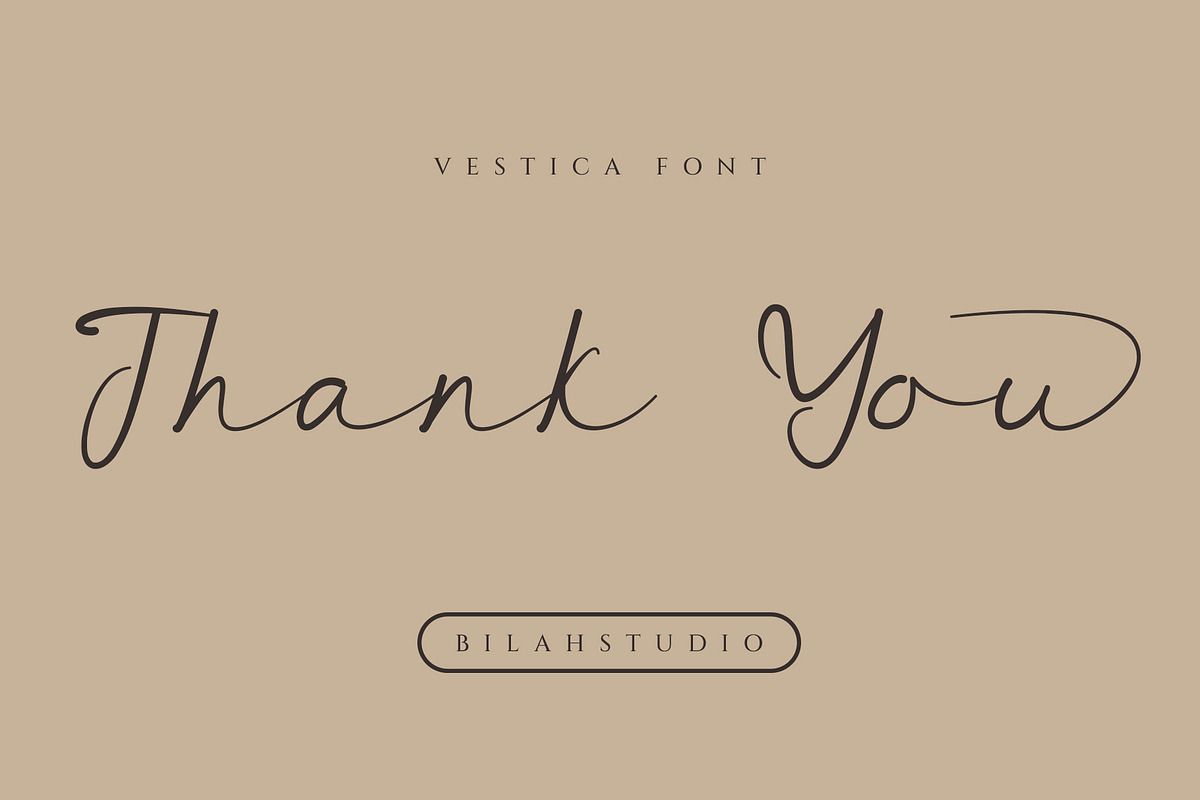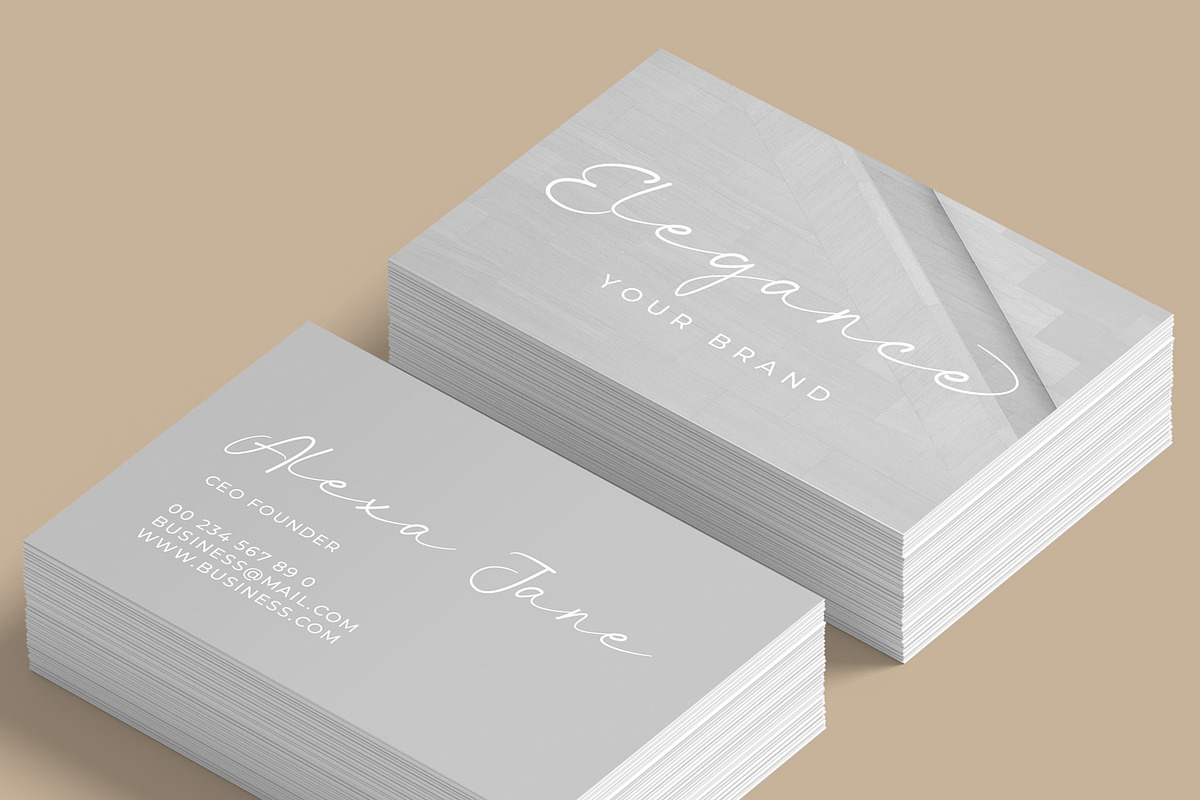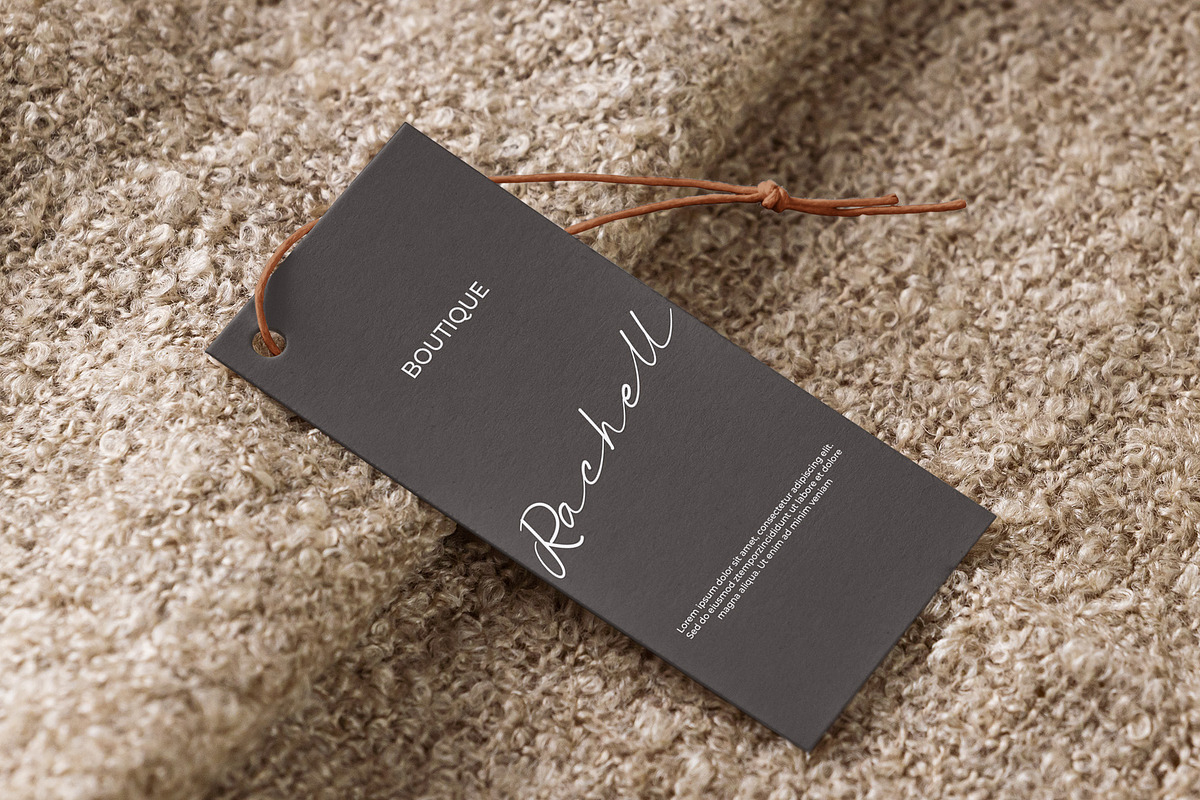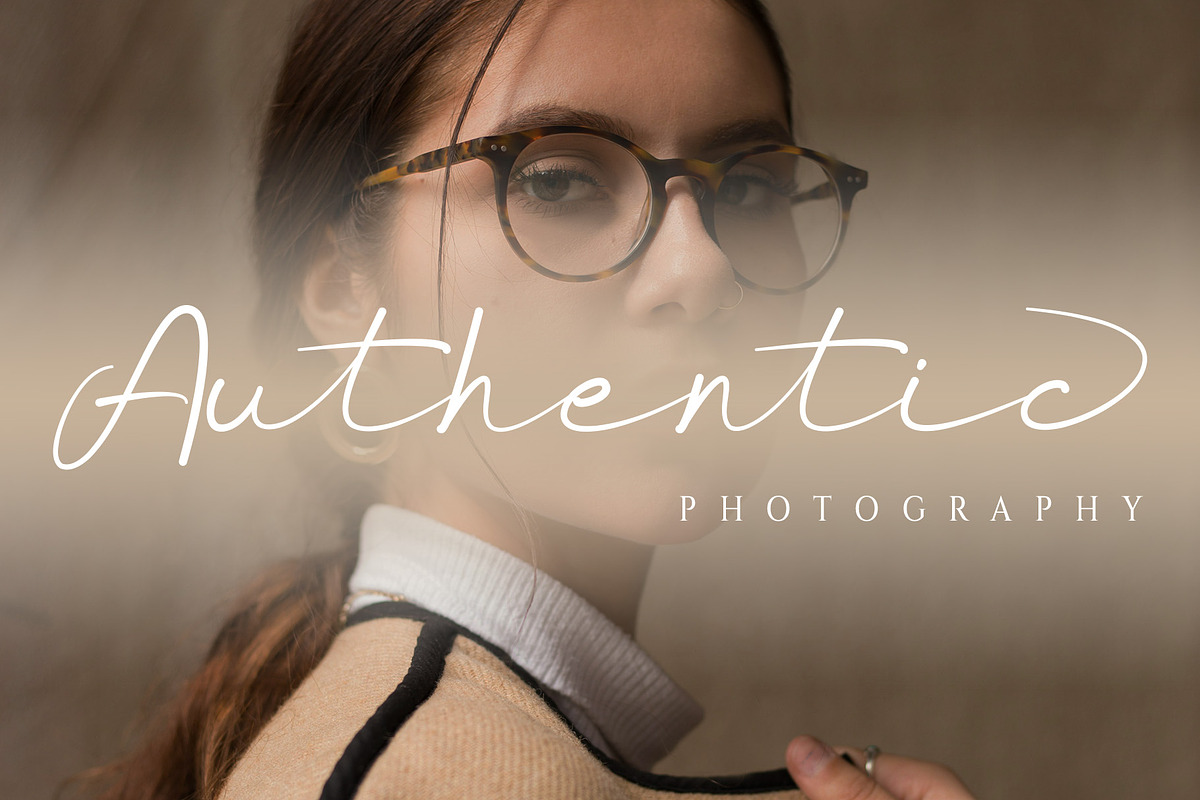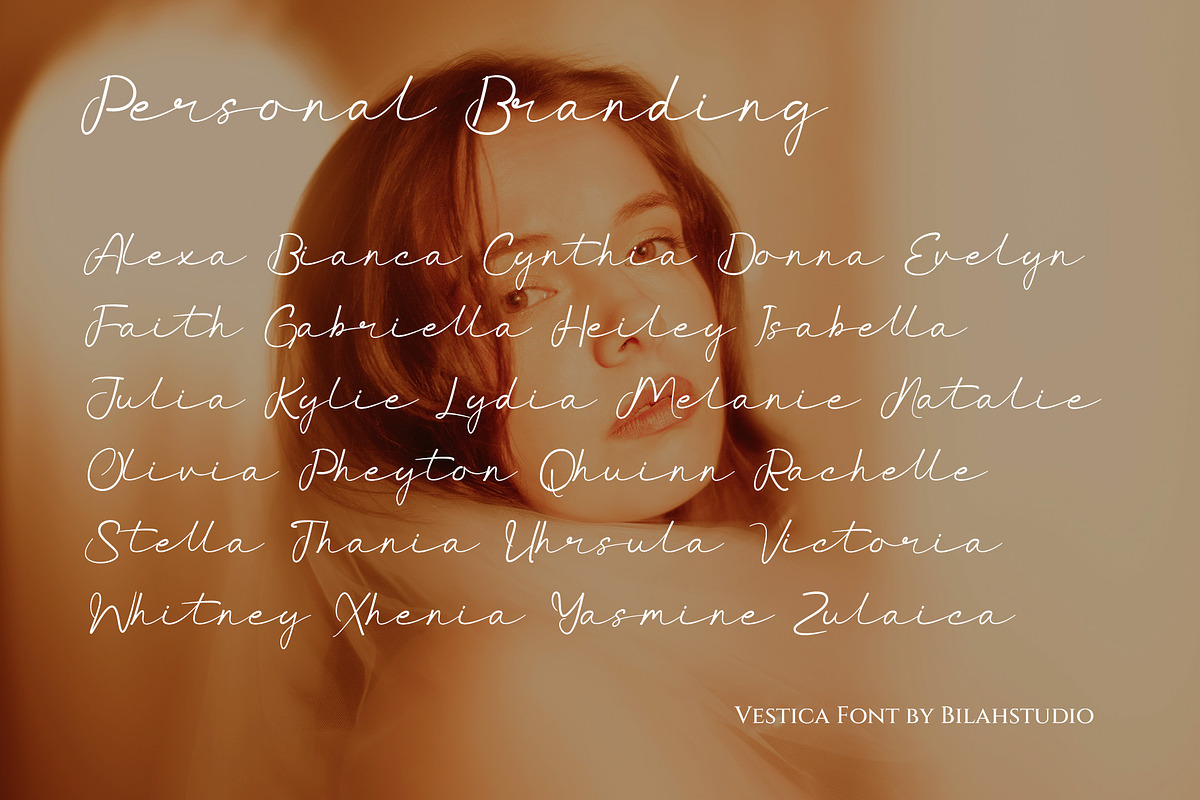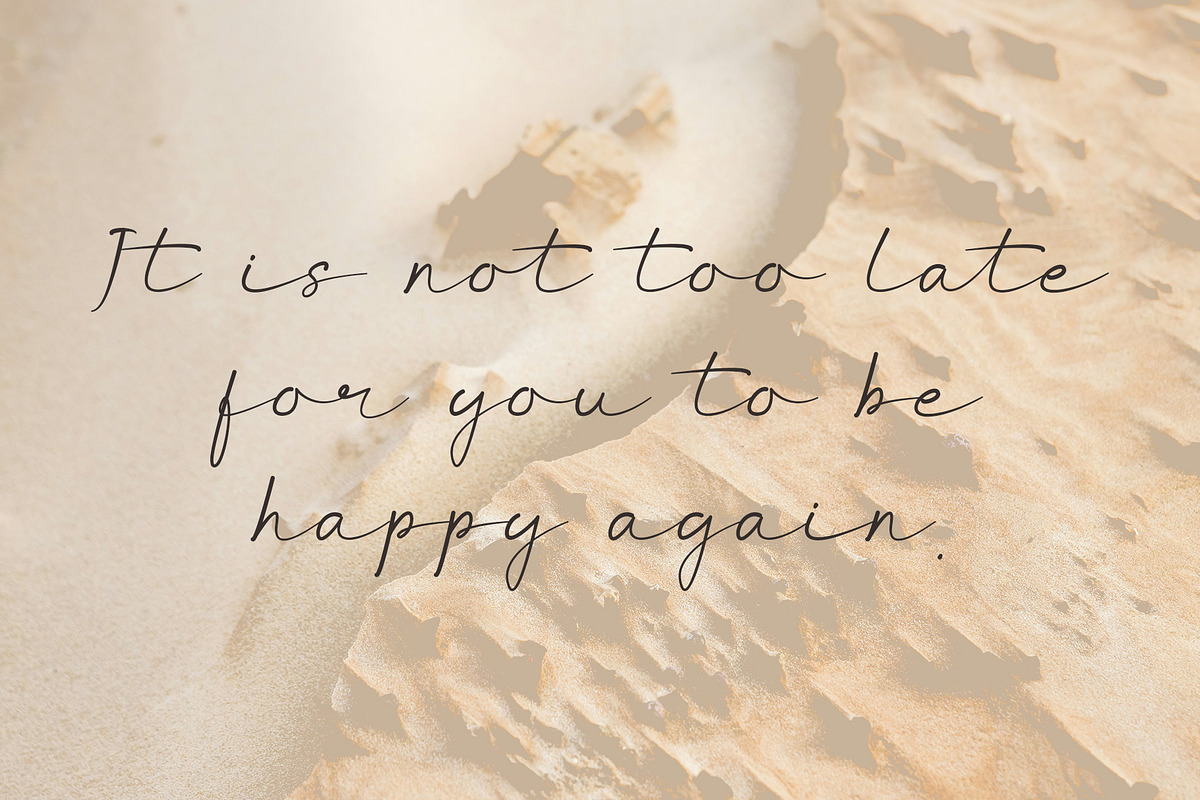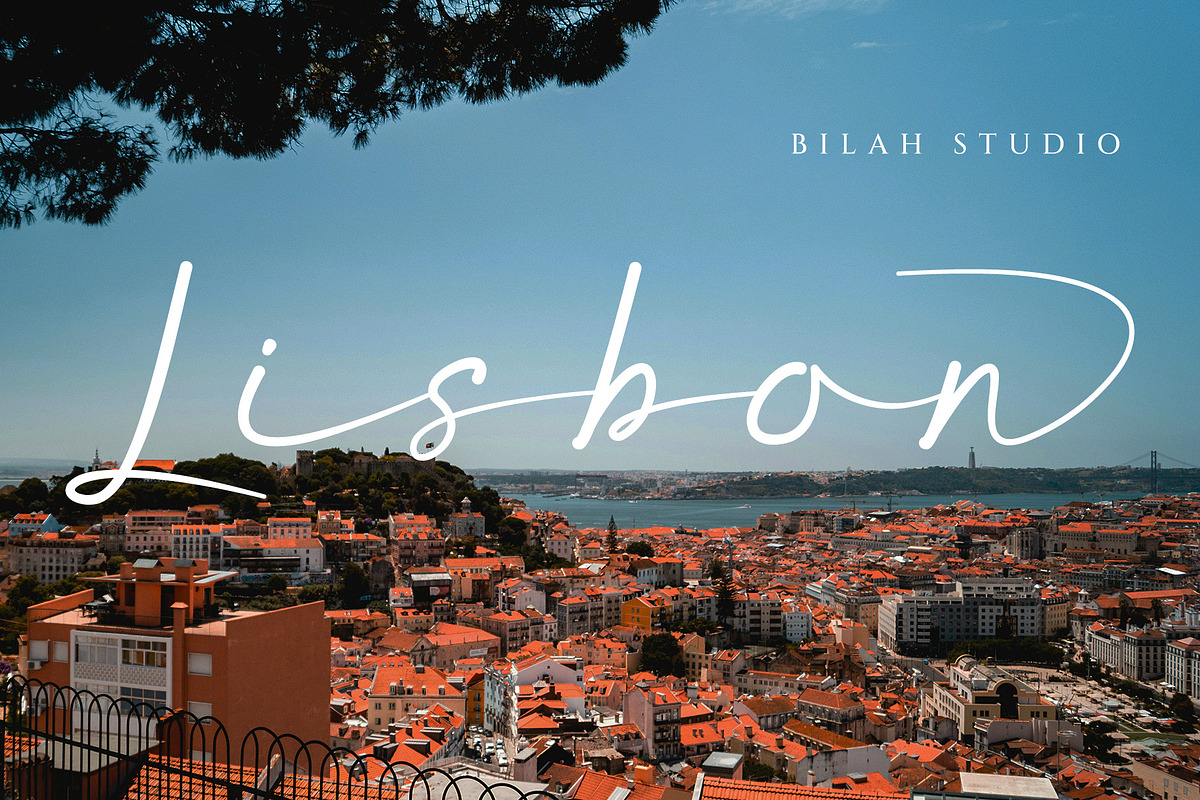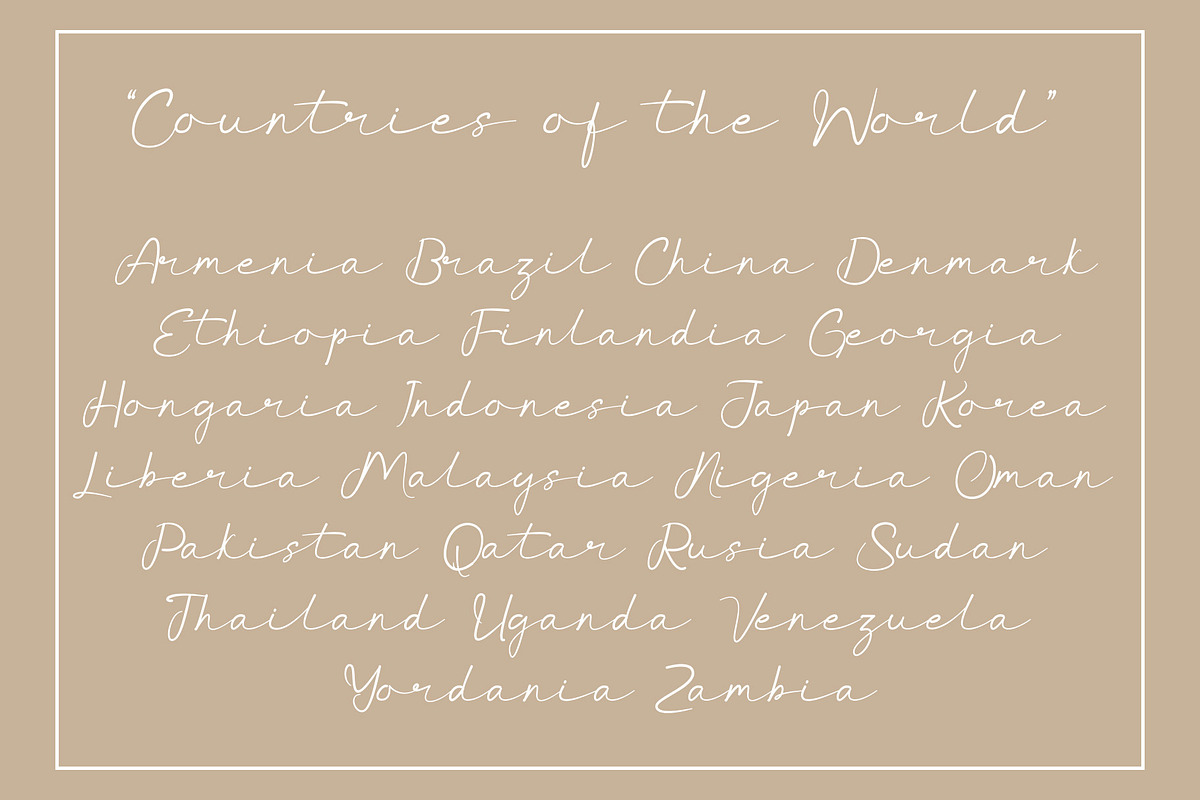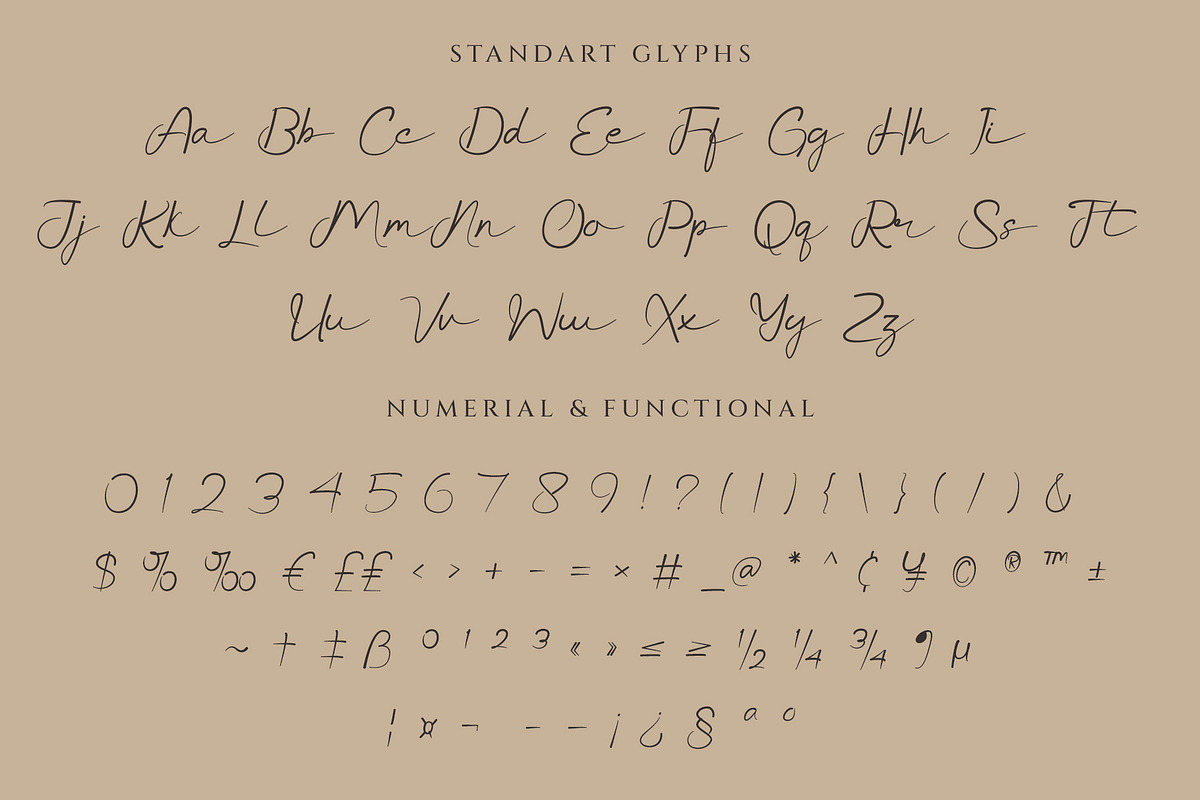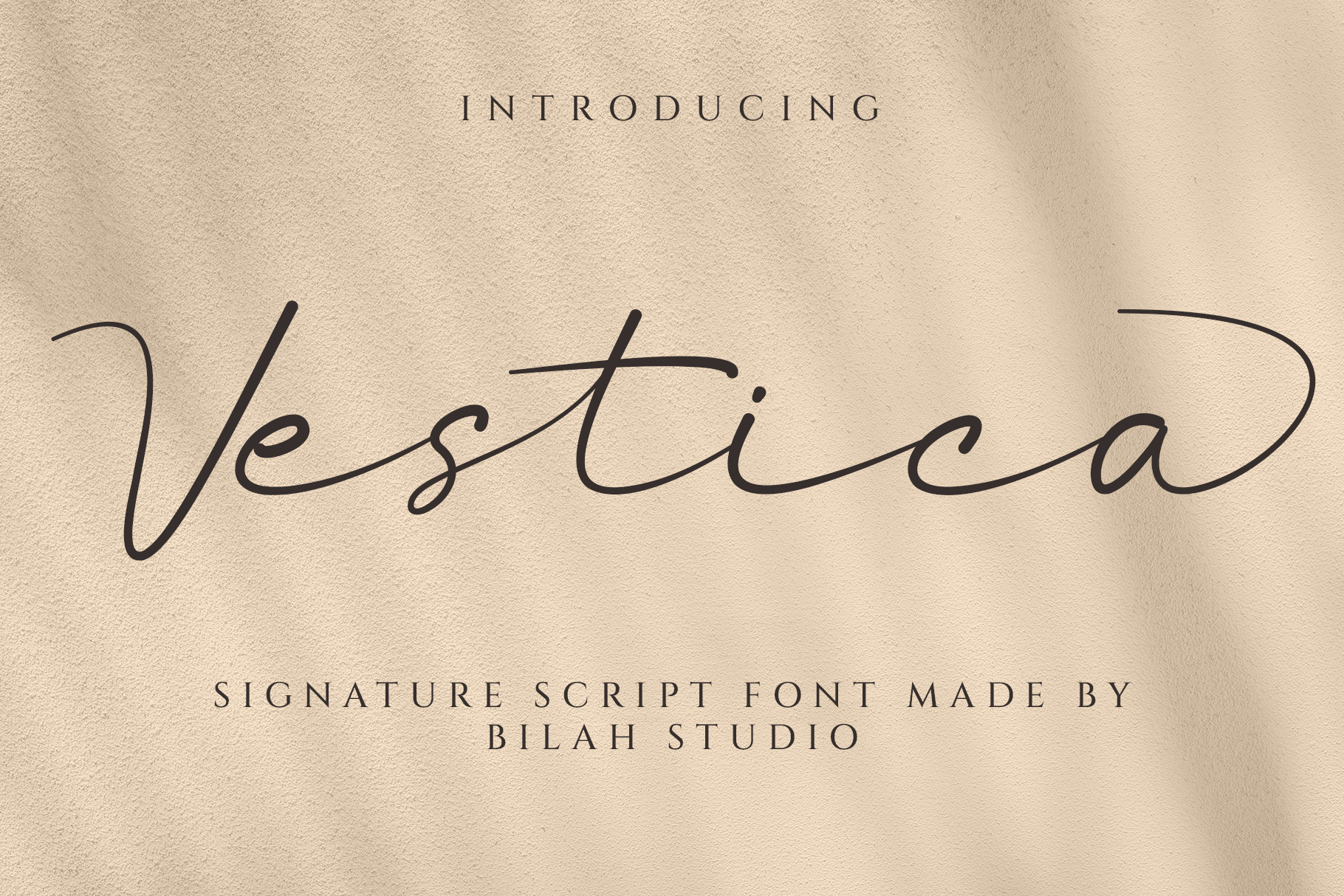
Vestica signature script font
Vestica is a font with an elegant style that conveys a professional yet minimalist feel. We designed it to be simple yet elegant, luxurious, premium, modern, highly readable, stylish, feminine, and eye-catching, all while ensuring ease of use.
Vestica is an excellent choice for photography watermarks, signature designs or logos, quotes, album covers, magazines, business cards, and a wide range of other design projects. Vestica is here to elevate your work and make it look stunning!